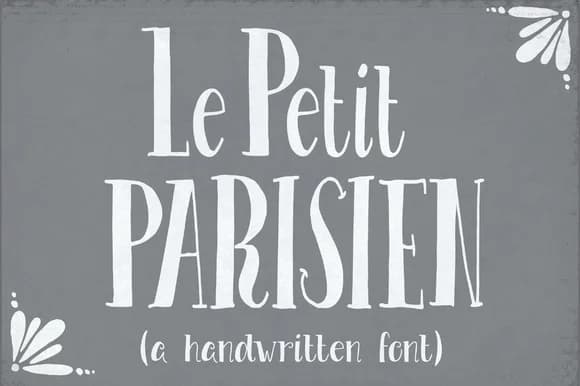
Le Petit Parisien Font by The Pen and Brush is a flowing script typeface that channels the refined aesthetic of Parisian typography. This hand-lettered design merges graceful, organic letterforms with the sophisticated simplicity that makes French design timeless and universally appealing.
The font excels in applications where romantic character matters. Craft custom wedding invitation suites with letterpress-inspired elegance, design boutique skincare packaging that whispers luxury, create Etsy product labels that stand out in competitive digital storefronts, or hand-letter bespoke greeting cards that feel genuinely personal. Its delicate strokes translate beautifully across both print mediums and digital displays, from editorial spreads to social media posts.
The typeface's natural movement and refined proportions make it equally at home in logo concepts for small independent brands and DIY craft signage projects where personality drives the visual identity. With comprehensive glyph coverage and versatile letterforms, Le Petit Parisien adapts to both straightforward text passages and decorative display scenarios without losing its inherent grace. These technical strengths, combined with its distinctly handmade quality, make it a reliable choice for designers who prioritize warmth and character over sterile perfection.
Le Petit Parisien Font is a script font that shines as a display or heading face. Pair it with a clean sans-serif or serif font for body text β the contrast creates a clear hierarchy while the two styles stay balanced and easy to read.